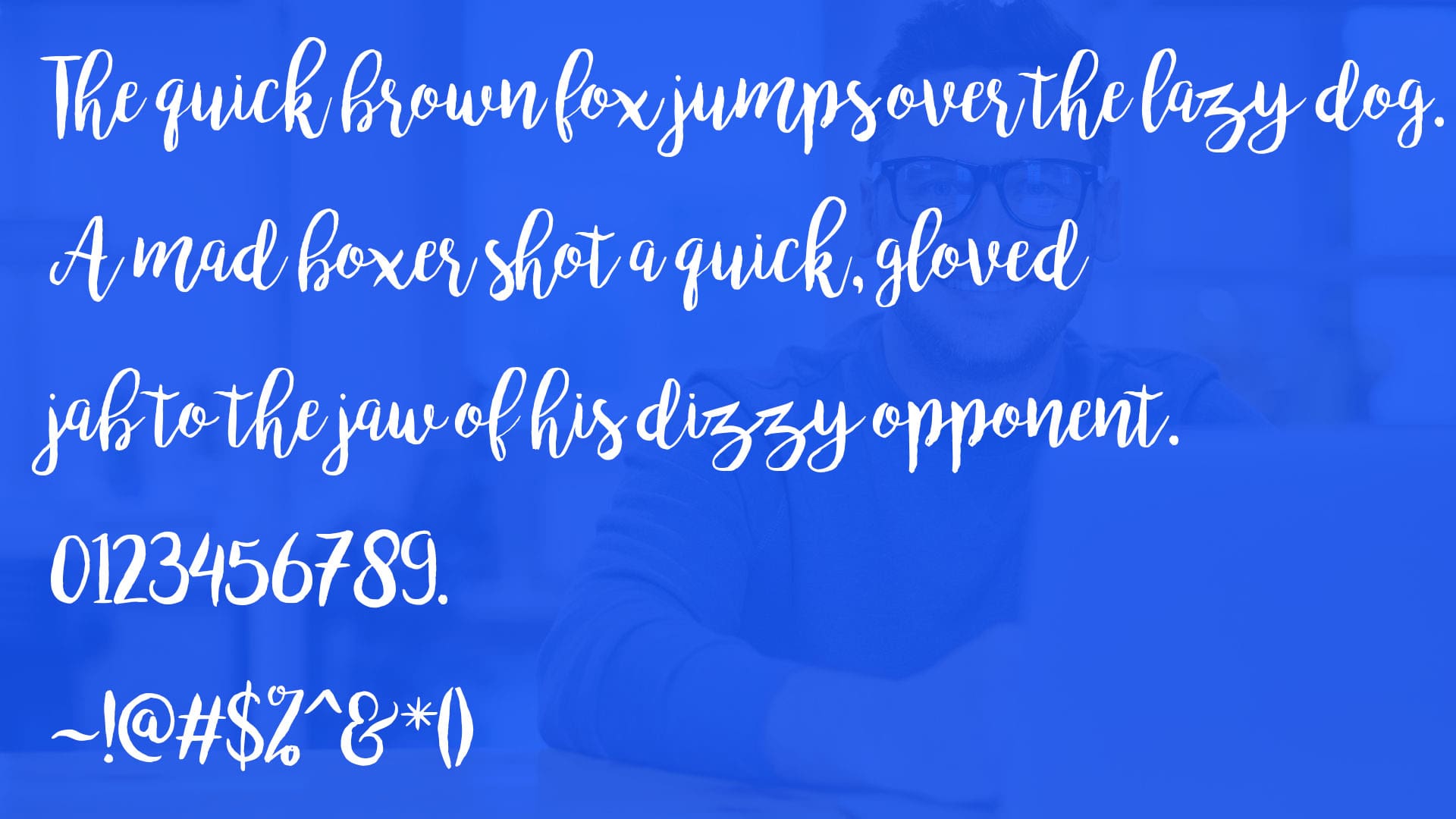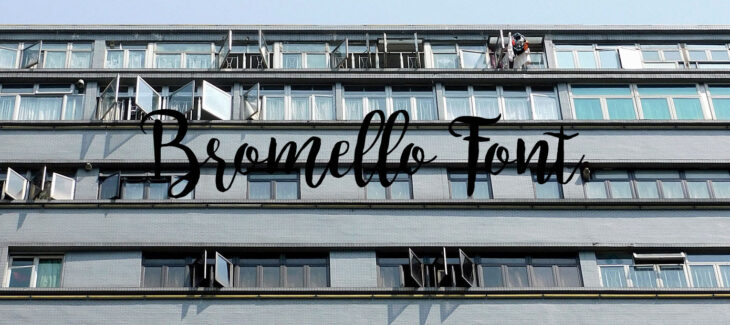
Today we presenting you a script typeface that named is “Bromello Font”. This font was designed by a very Famous and creative designer named is “Alit Design”. This is a very well-known designer that designs many creative fonts and mostly font is very famous.
This is a hand-letter brush typeface that can be available in OpenType and TrueType file format. It has lowercase, uppercase, glyphs, alternates, and many different characters but this font family comes in only one regular style.
Who Used Bromello Font?
This is a script font that most lovable and delicious handwritten typeface that provides more elegant and classy styles. You can use this typeface for any type of typography and graphic designing field. You can also utilize this font in the font generator toll that you may use online.
This font has a clean and joining texture. This font has a highly distinct and unique form of typeface. The user’s favorite feature is the overall structure. Because of its design, this typeface is liked by many users.
Bromello Font Family Appearance
What typeface looks like to Bromello Font?